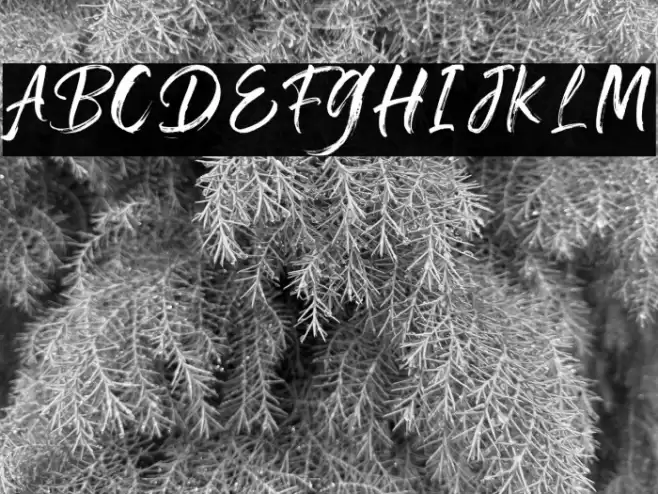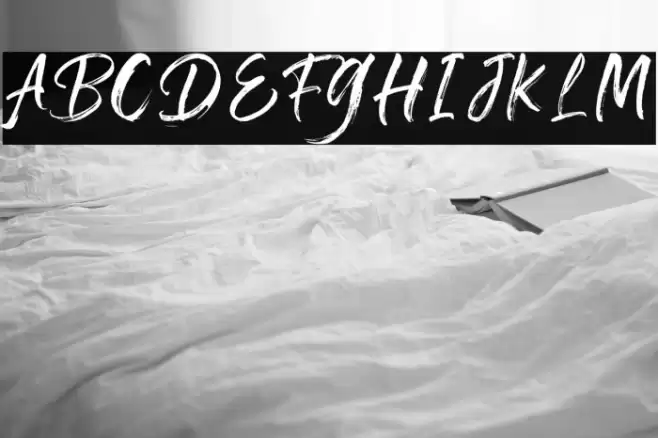
Zephyrush-RegularFree Font
Zephyrush-RegularFree Description
This font exudes a dynamic and expressive style, characterized by its brush-like strokes that convey a sense of movement and fluidity. The uppercase letters are bold and sweeping, with varying stroke widths that add a lively rhythm to the text. The lowercase letters maintain this energetic flow, with elegant curves and a slightly informal touch. The overall appearance is both artistic and modern, making it suitable for creative projects that require a personal and handcrafted feel. The font's unique character is further enhanced by its irregularities, which contribute to its charm and individuality.
A dynamic, brush-style font with expressive and fluid strokes from Uncategorized fonts.
- Font: Zephyrush-RegularFree
- Proposed Projects: Ideal for branding, packaging, invitations, and artistic posters.
- Use Case: Logos, Headlines, Artistic projects
Zephyrush-RegularFree UPPERCASE
Zephyrush-RegularFree LOWERCASE
Zephyrush-RegularFree OTHER CHARS